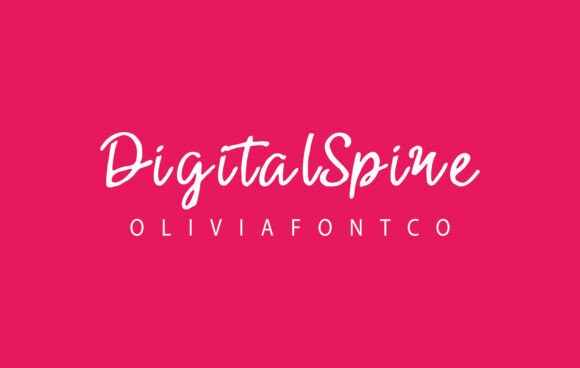
Introducing Digitalspire Font: The Ultimate Handwritten Font for Creative Expression
In the world of typography, fonts play a crucial role in conveying emotions, setting tone, and creating a lasting impression. For designers, artists, and writers, finding the perfect font can be a daunting task. However, if you’re looking for a font that exudes romance, elegance, and creativity, look no further than Digitalspire Font. In this article, we’ll explore the features, benefits, and uses of Digitalspire Font, and why it’s becoming a favorite among designers and creatives.
What is Digitalspire Font?
Digitalspire font is an authentic handwritten font with a romantic touch. Expertly designed to be a true favorite, this font has the potential to take your creative ideas to the highest level. With its unique blend of elegance and playfulness, Digitalspire Font is perfect for a wide range of design projects.
Key Features of Digitalspire Font
- Legibility: Digitalspire Font is designed to be highly legible, making it perfect for both title and body text.
- Romantic Touch: The font’s handwritten style gives it a romantic and personal feel, perfect for designs that require a touch of elegance.
- Versatility: Digitalspire Font can be used for a wide range of design projects, from magazine headlines to social media graphics, branding, wedding invitations, and more.
Uses of Digitalspire Font
Digitalspire Font is a versatile font that can be used for a variety of design projects. Here are some ideas to get you started:
- Magazine Headlines: Use Digitalspire Font to create eye-catching headlines for your magazine or newspaper.
- Social Media Graphics: Create engaging social media graphics, such as Facebook posts, Twitter headers, and Instagram stories, using Digitalspire Font.
- Branding: Use Digitalspire Font to create a unique and memorable brand identity for your business.
- Wedding Invitations: Add a touch of romance and elegance to your wedding invitations with Digitalspire Font.
- Cards: Use Digitalspire Font to create beautiful and personalized cards for special occasions.
Benefits of Using Digitalspire Font
There are many benefits to using Digitalspire Font for your design projects. Here are a few:
- Unique and Creative: Digitalspire Font is a unique and creative font that will set your designs apart from the rest.
- Elegant and Sophisticated: The font’s romantic touch gives it an elegant and sophisticated feel, perfect for designs that require a touch of luxury.
Tips for Using Digitalspire Font
Here are some tips for using Digitalspire Font effectively:
- Use it Sparingly: Use Digitalspire Font sparingly to create a lasting impression. Overusing the font can make your designs look cluttered and messy.
- Pair it with Other Fonts: Pair Digitalspire Font with other fonts to create a unique and interesting contrast.
- Experiment with Colors: Experiment with different colors to find the perfect combination that complements Digitalspire Font.
- Pay Attention to Kerning: Pay attention to kerning to ensure that your text looks professional and polished.
Digitalspire Font is a beautiful and versatile font that is perfect for designers, artists, and writers who want to add a touch of elegance and romance to their designs. With its unique blend of handwritten style and romantic touch, Digitalspire Font is sure to take your creative ideas to the highest level. Whether you’re working on a magazine headline, social media graphic, branding project, or wedding invitation, Digitalspire Font is the perfect choice.
- What is Digitalspire Font? Digitalspire Font is an authentic handwritten font with a romantic touch.
- Is Digitalspire Font legible? Yes, Digitalspire Font is designed to be highly legible, making it perfect for both title and body text.